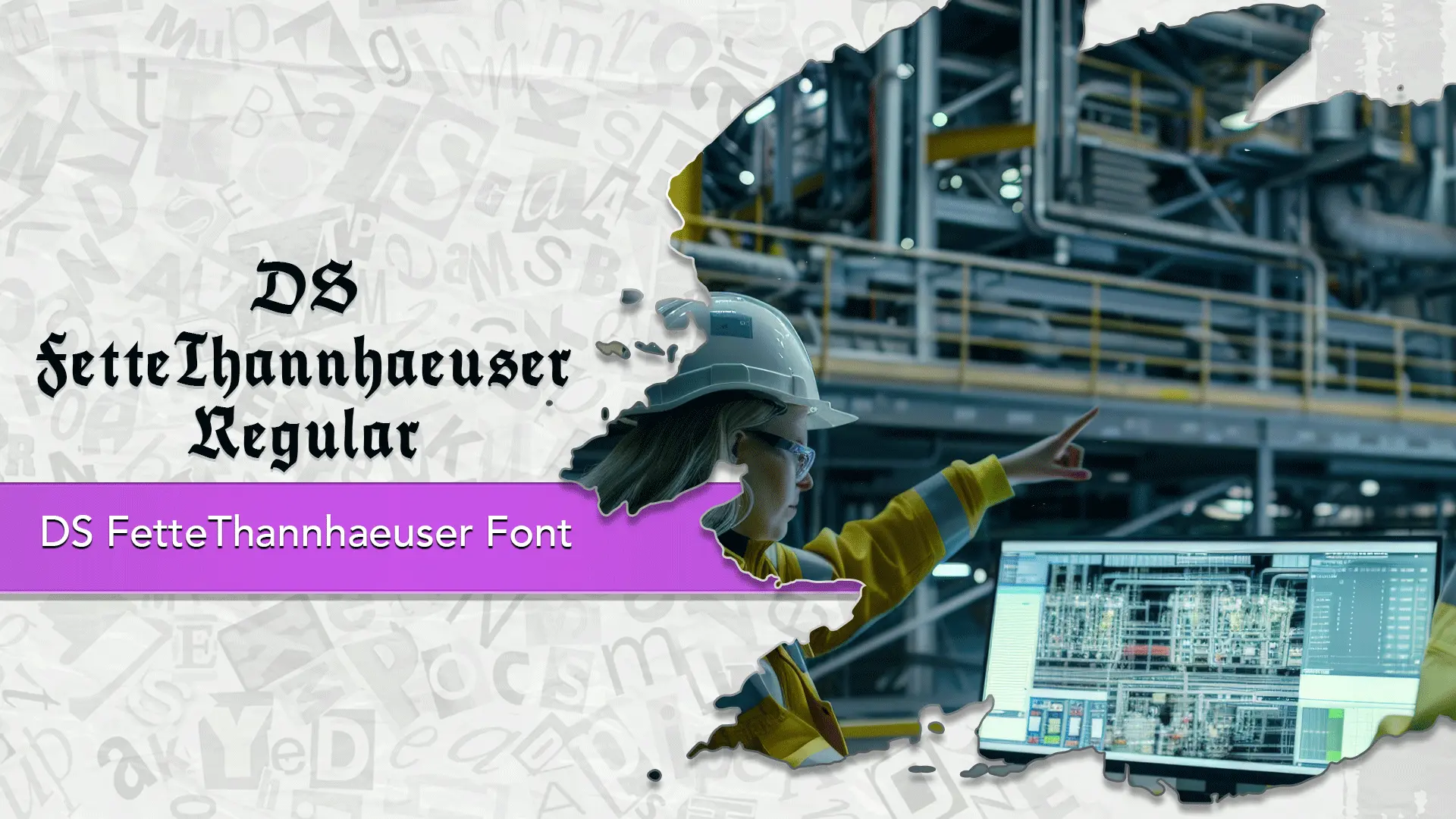
The DS FetteThannhaeuser font family may be ideal for you if you enjoy working on an artistic design project. The lively, expressive look of this typeface, which was created by Typographer Mediengestaltung, makes it ideal for Bold Headlines and Titles, Industrial and Urban Branding, Vintage or Retro Themed Designs(Historical Reenactment or Themed Events, Film or Game Titles), Graphic Novels and Comics(Could be used for titles or specific dialogue in graphic novels that require a forceful, bold, or slightly vintage comic book feel.) and other light-hearted visual projects.
Regular are the one primary font styles of the DS FetteThannhaeuser font family. You may build dynamic, visually appealing text layouts with the distinct flair that each style offers. With crisp, readable lines and a relaxed tone.